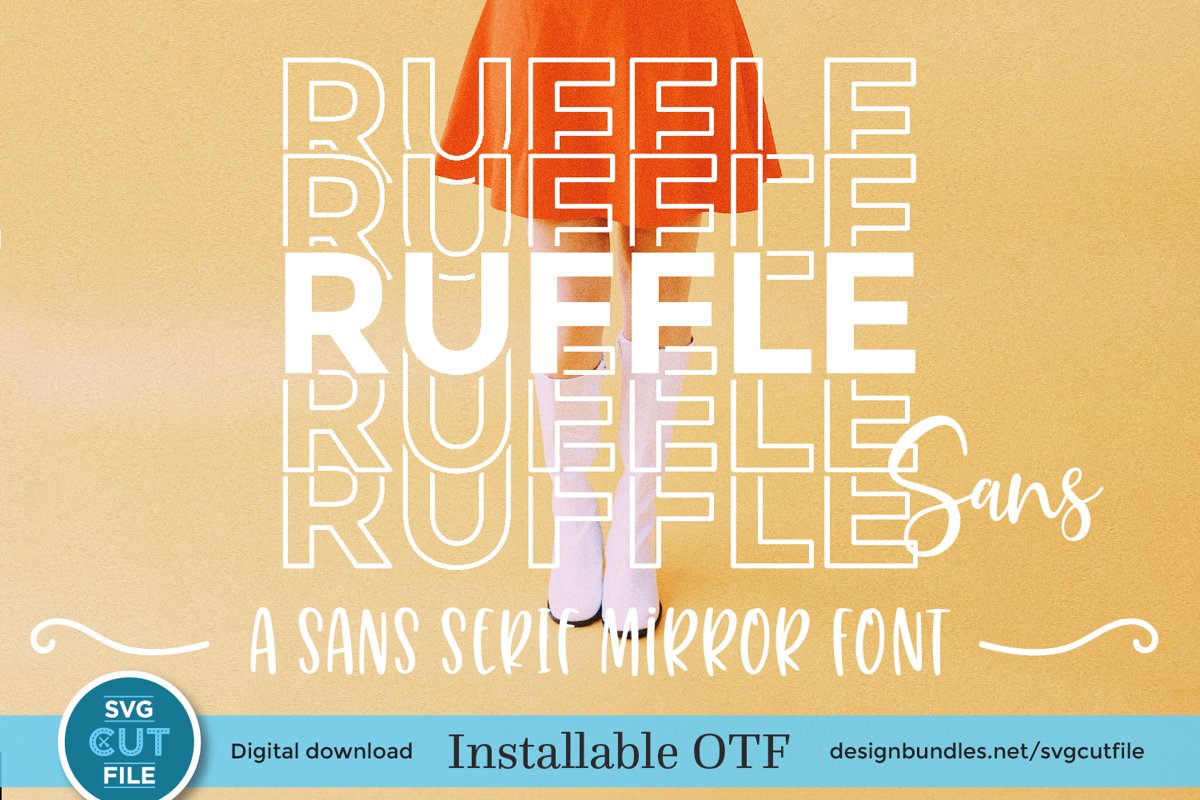
Ruffle Sans Mirror font with stacked letters - an OTF file
Ruffle Sans installable otf mirror font - This super-cute sans serif stacked mirror font is perfect when you're making projects that need a little pizzazz!
- Clothing gifts for your friends, like tshirts and hats, etc
- Mugs and tumblers
- Bags and accessories
- Home Decor items, like doormats or pillows
- Cute Stationary and greeting cards
- Anything else you can imagine!